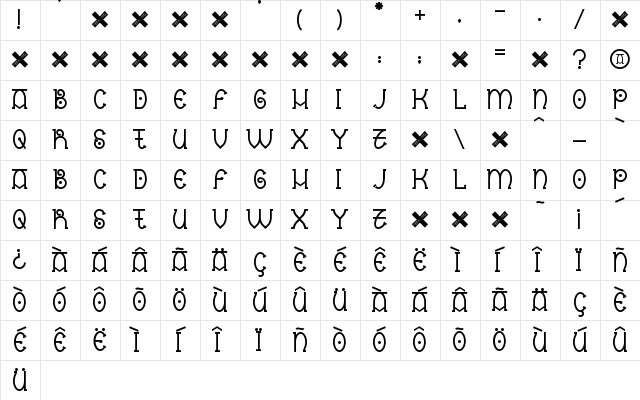
Nantronte Regular
Design Context for Nantronte
Nantronte is a composed and adaptable typeface that performs quietly and consistently across a wide range of design contexts.